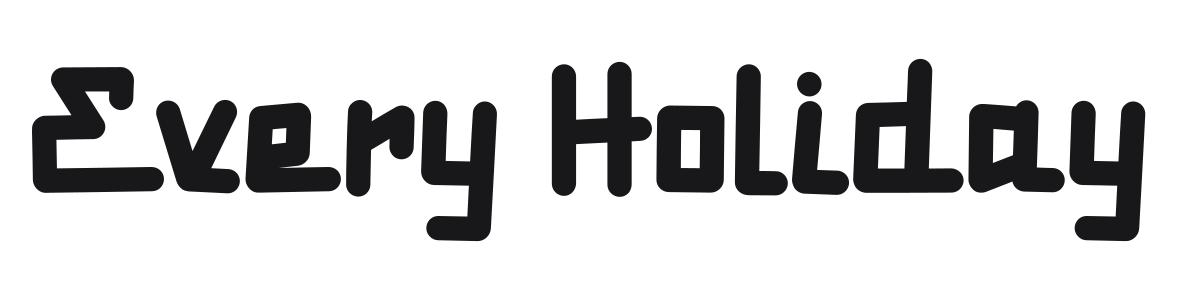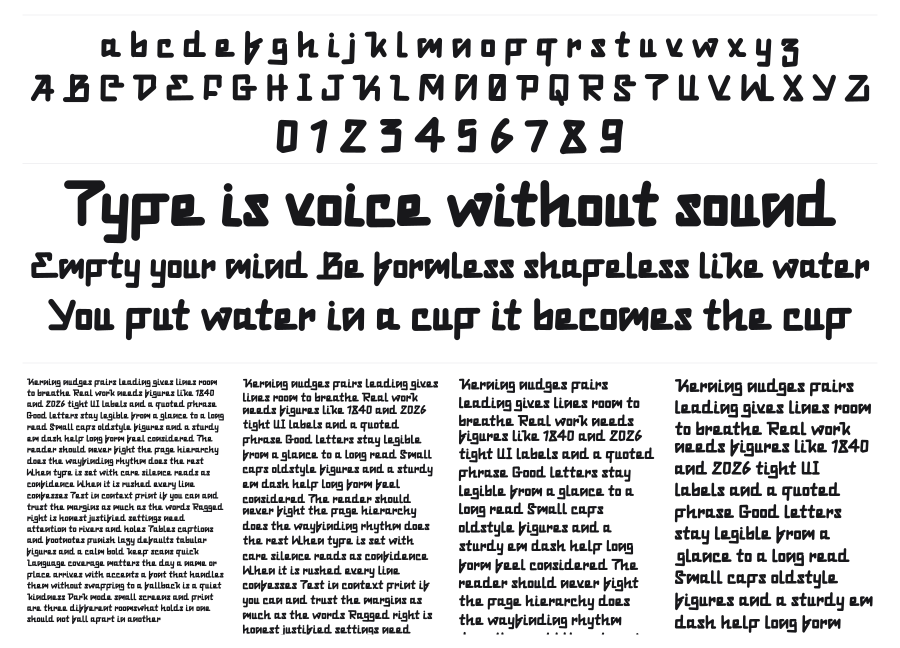
Every Holiday
Every Holiday is a bold, chunky display font with thick rounded strokes and irregular, hand-crafted character construction. Each letter has distinctive angled cuts and notched terminals that give it a lively, festive personality far from conventional typefaces. It works best large, for seasonal packaging, greeting cards, and holiday branding.